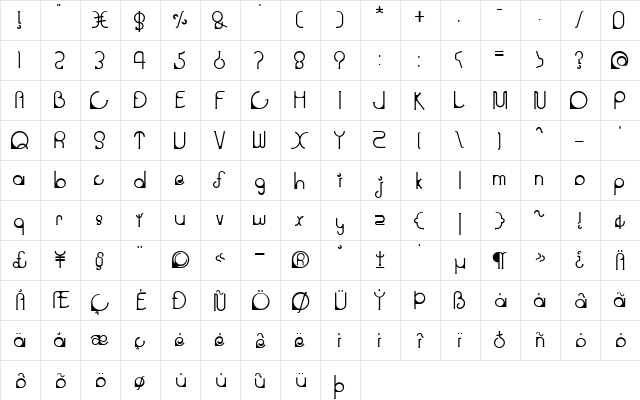
Slide Regular
Design Context for Slide Typeface
Slide offers clean, dependable letterforms without strong stylistic allegiance, making it a practical choice for designers who need flexibility.
Pro Tip: Pair Slide with a font of contrasting weight or personality to build a more expressive typographic hierarchy.